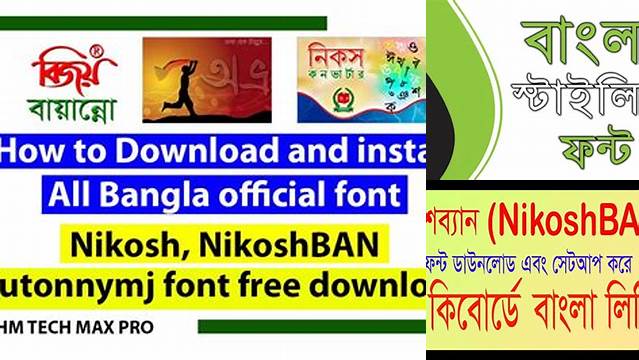
Nikoshban Font: Free Download & Usage Guide
Hey guys! Ever stumbled upon a font that just clicks? For many, that font is Nikoshban. It's clean, it's elegant, and it's super versatile. If you're looking for a font that can add a touch of sophistication to your projects without costing you a dime, then Nikoshban font free download is definitely something you should explore. In this comprehensive guide, we’ll dive deep into everything you need to know about this awesome font. From where to safely download it to how to use it effectively, consider this your Nikoshban bible! Whether you're a seasoned designer or just starting, understanding how to leverage fonts like Nikoshban can significantly elevate your creative work. So, buckle up, and let's get started!
Nikoshban Font: What Makes It Special?
What exactly sets Nikoshban apart from the sea of other fonts out there? Well, for starters, it's incredibly readable. This makes it a fantastic choice for body text in websites, documents, and even print materials. But it's not just about readability. Nikoshban also has a certain charm to it. It’s modern enough to feel fresh but classic enough to be timeless. This unique blend makes it suitable for a wide range of projects, from corporate reports to creative marketing campaigns. When you're aiming for clarity and a touch of elegance, Nikoshban font free download can really hit the sweet spot. Plus, it's a widely supported font, meaning you shouldn't run into compatibility issues across different platforms and devices. It’s basically the Swiss Army knife of fonts – reliable and adaptable.
Nikoshban Font for Web Design: Best Practices
Pairing Nikoshban Font with Other Fonts
Choosing the right font pairing can make or break your design. When pairing Nikoshban with other fonts, aim for contrast and balance. Consider pairing it with a serif font for a classic and elegant look, or a sans-serif font for a modern and minimalist feel. Experiment with different combinations to see what works best for your project. Nikoshban font free download is versatile enough to complement a wide range of fonts. Some popular pairings include Open Sans, Roboto, and Montserrat. The key is to choose fonts that enhance Nikoshban's strengths and create a cohesive and visually appealing design.
Nikoshban Font: Resources and Tutorials for Further Learning